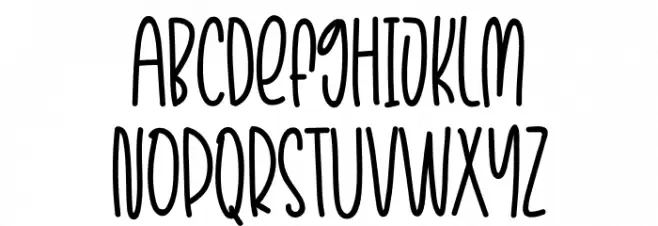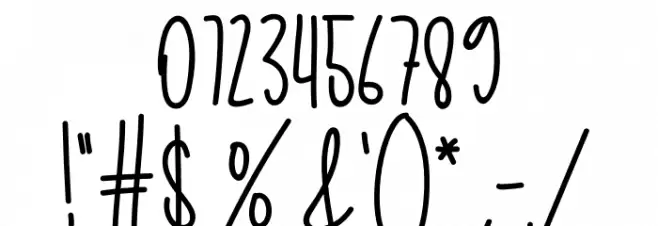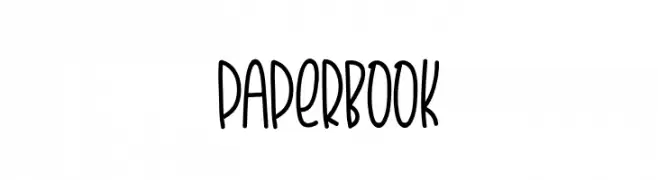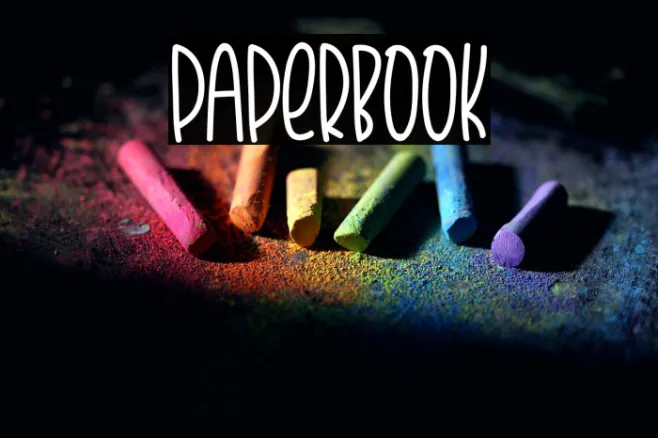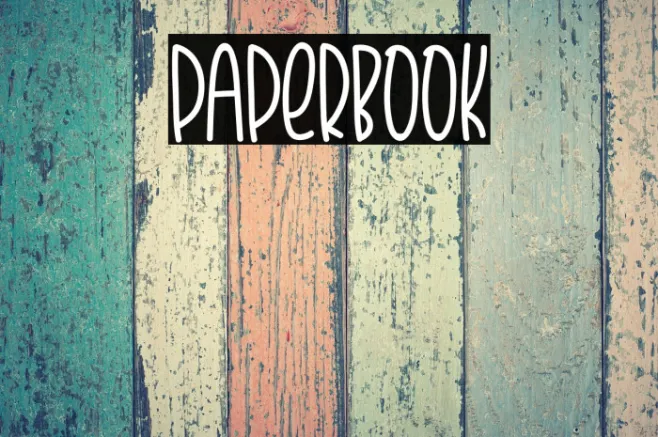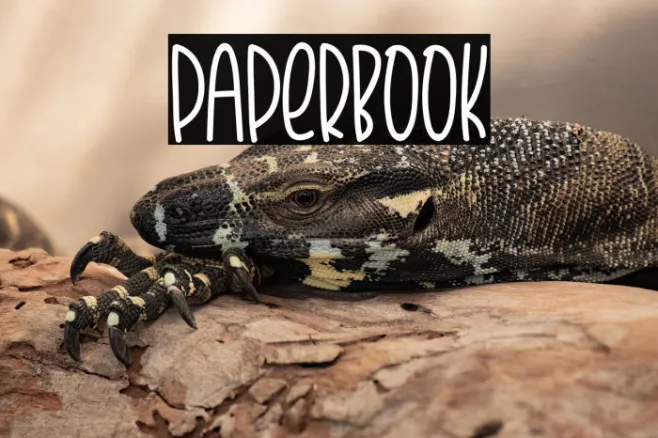
Paperbook
This font features a playful and casual handwritten style, characterized by its tall, narrow letters with rounded edges. The strokes are consistent in width, giving it a uniform appearance. The uppercase and lowercase letters maintain a cohesive look, with a slight slant that adds to its informal charm. The numerals and special characters are designed to match the overall aesthetic, making it versatile for various applications. Its friendly and approachable design makes it suitable for projects that require a personal touch.
A playful, handwritten font with tall, narrow letters and rounded edges.
- Proposed Projects: Ideal for greeting cards, children's books, casual branding, and social media graphics.
- Width: Condensed
- Overall Style: Casual
- Use Case: Headlines, Logos, Informal text